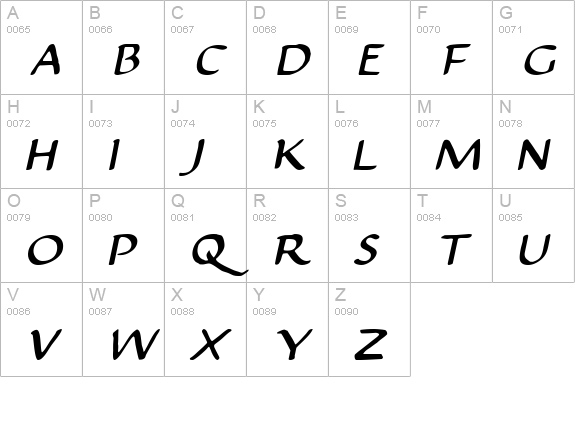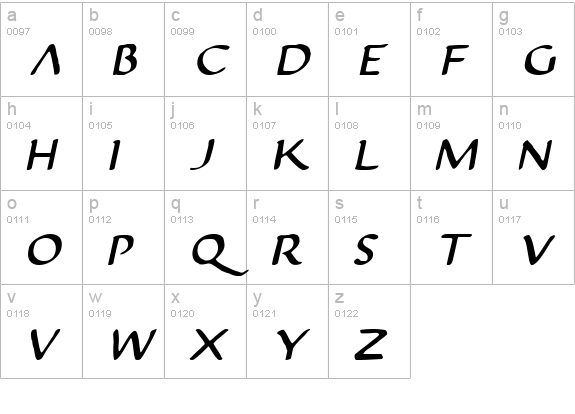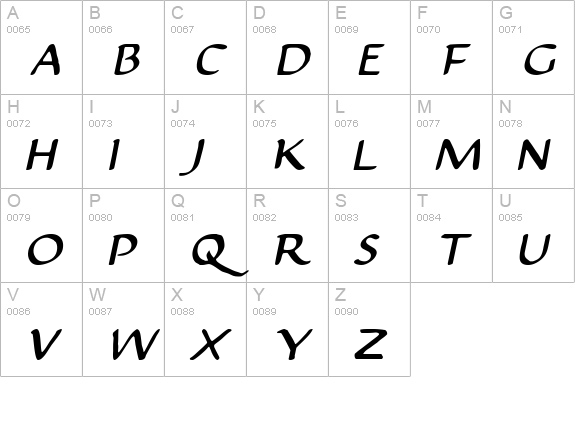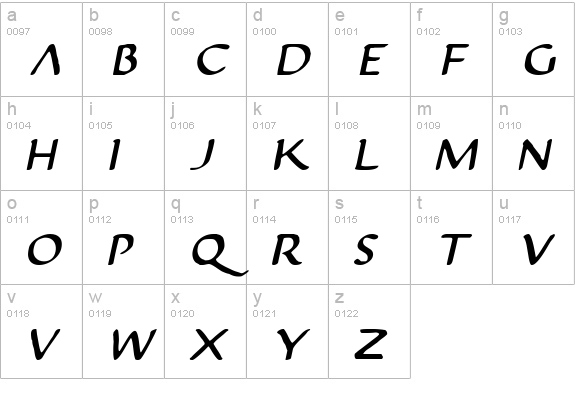
Justinian 2 Italic Font Details
Justinian 2 Italic is a distinctive, italic variant in the Justinian typeface family \xE2\x80\x94 well suited to design and typography projects.
Justinian 2 Italic font is a sleek and sophisticated typeface designed for modern design projects. Its elegant curves and subtle slant add a touch of class to any text. The italicized style of this font brings an air of sophistication and style, making it perfect for use in branding, advertising, and editorial design. Justinian 2 Italic font is versatile and easy to read, making it an excellent choice for both print and digital applications. And the best part? Justinian 2 Italic font is available for free download at FontsMarket.com, making it easily accessible to all designers and creatives looking to elevate their projects with a touch of elegance. Don't miss out on this stylish font that will enhance your designs and make them stand out from the crowd. Download Justinian 2 Italic font today and add a touch of sophistication to your next project!